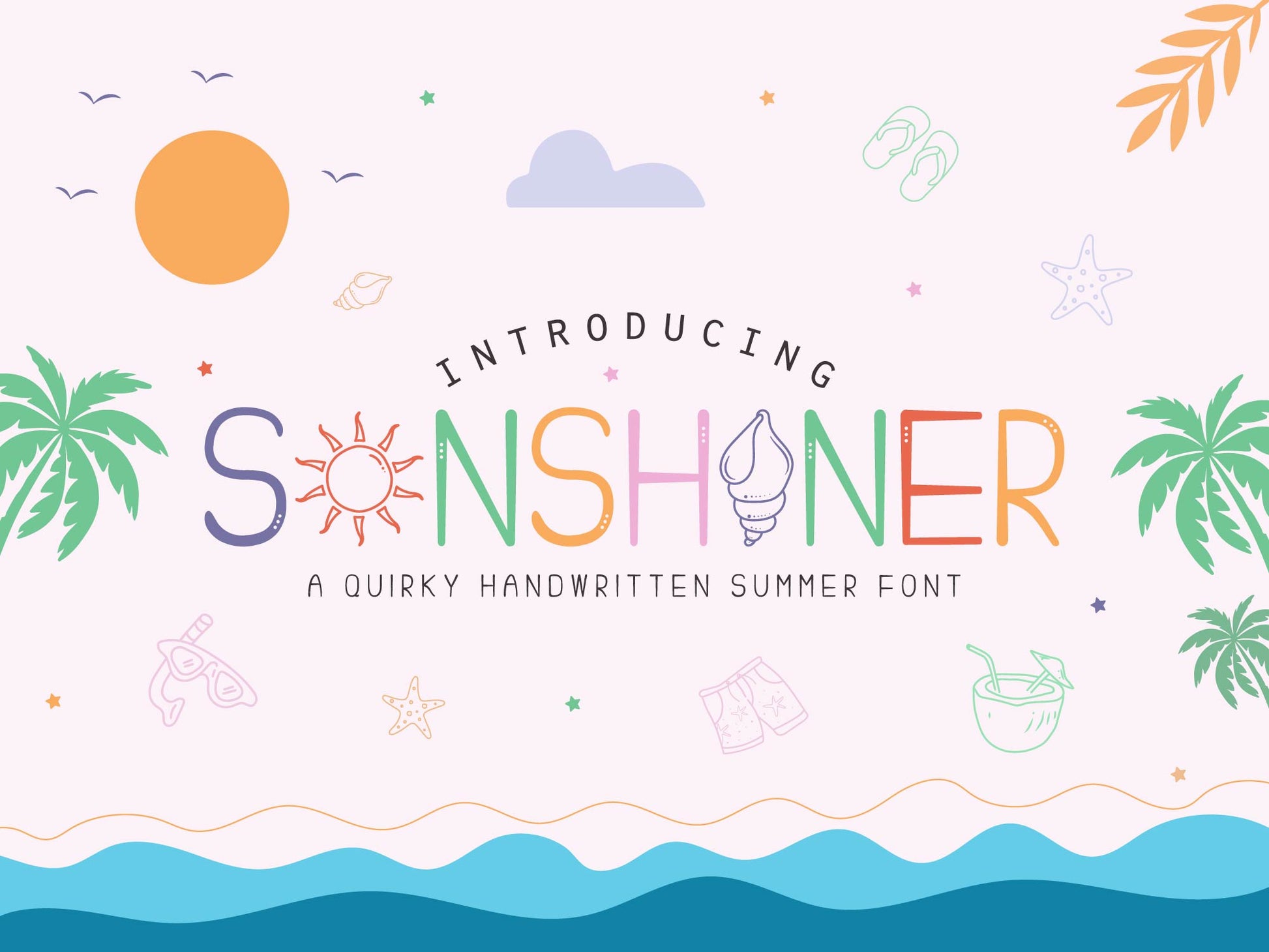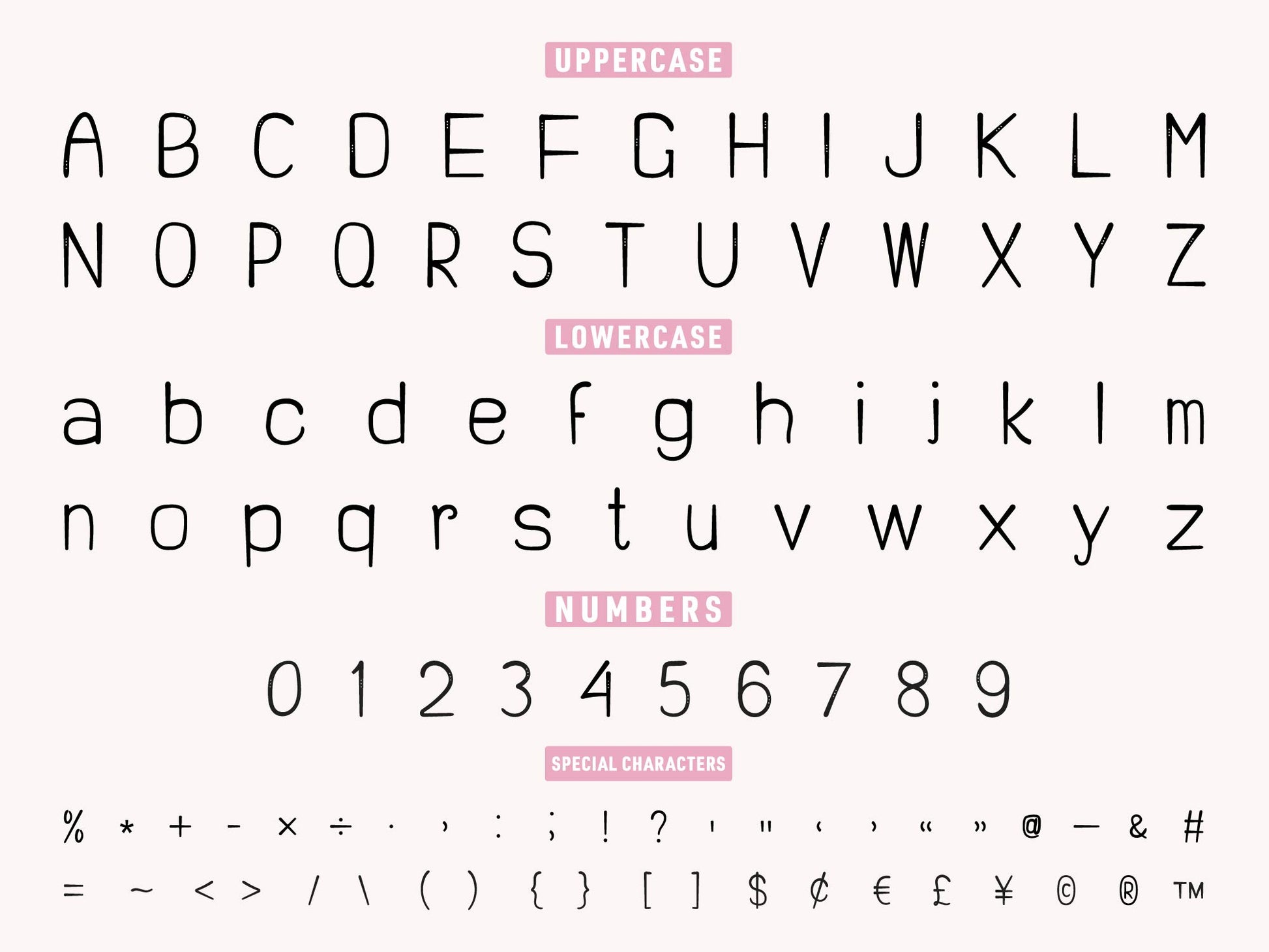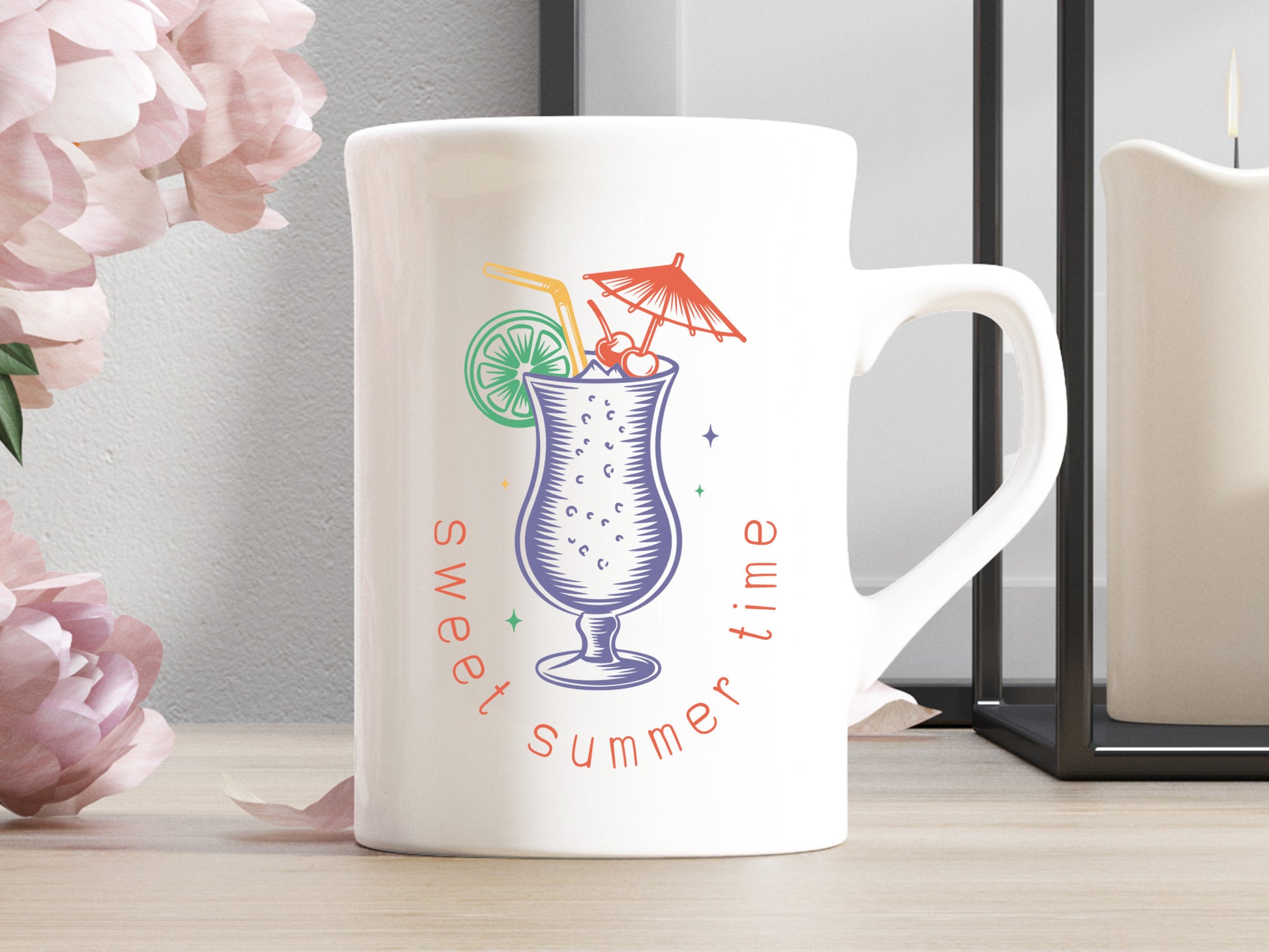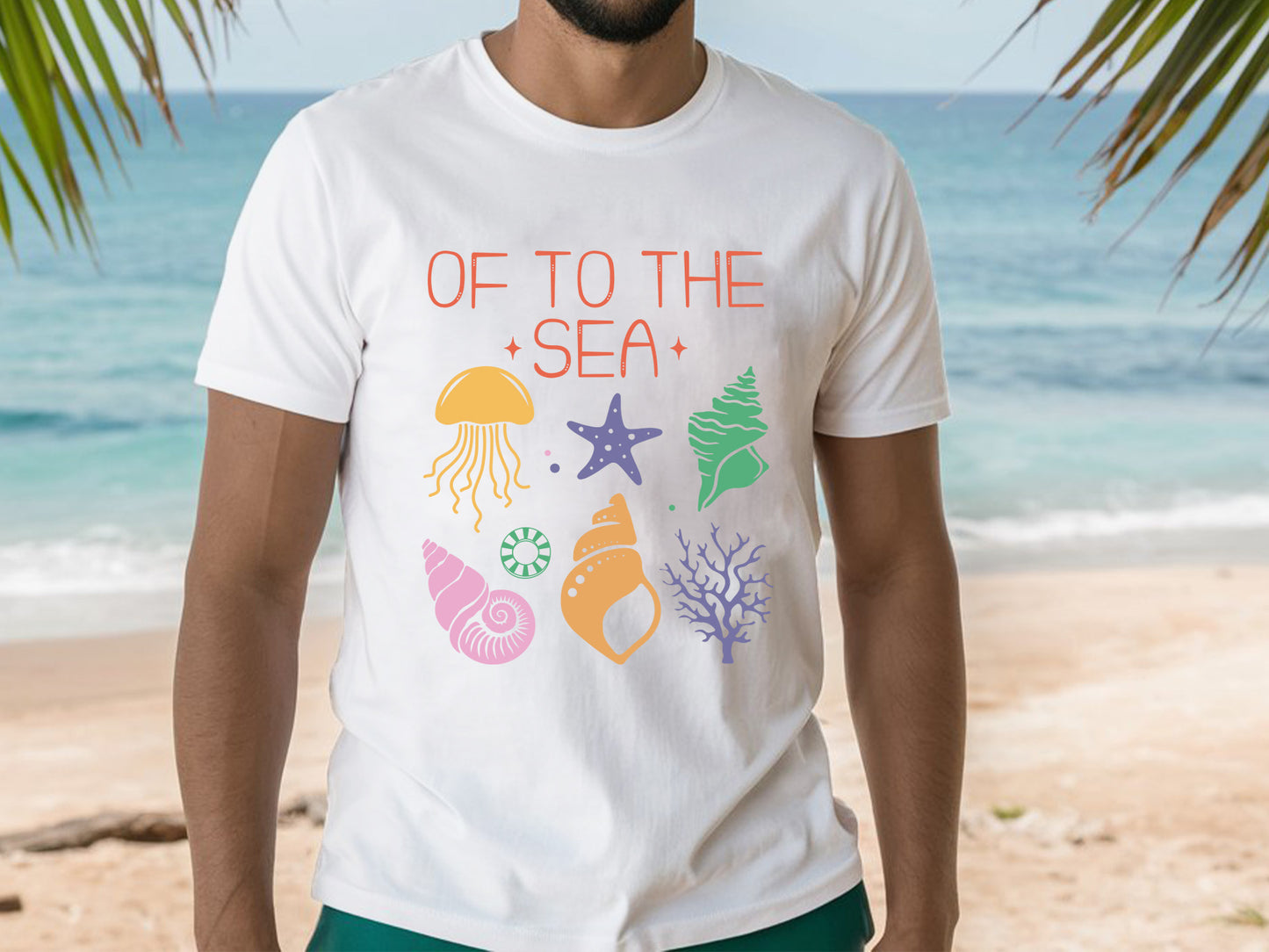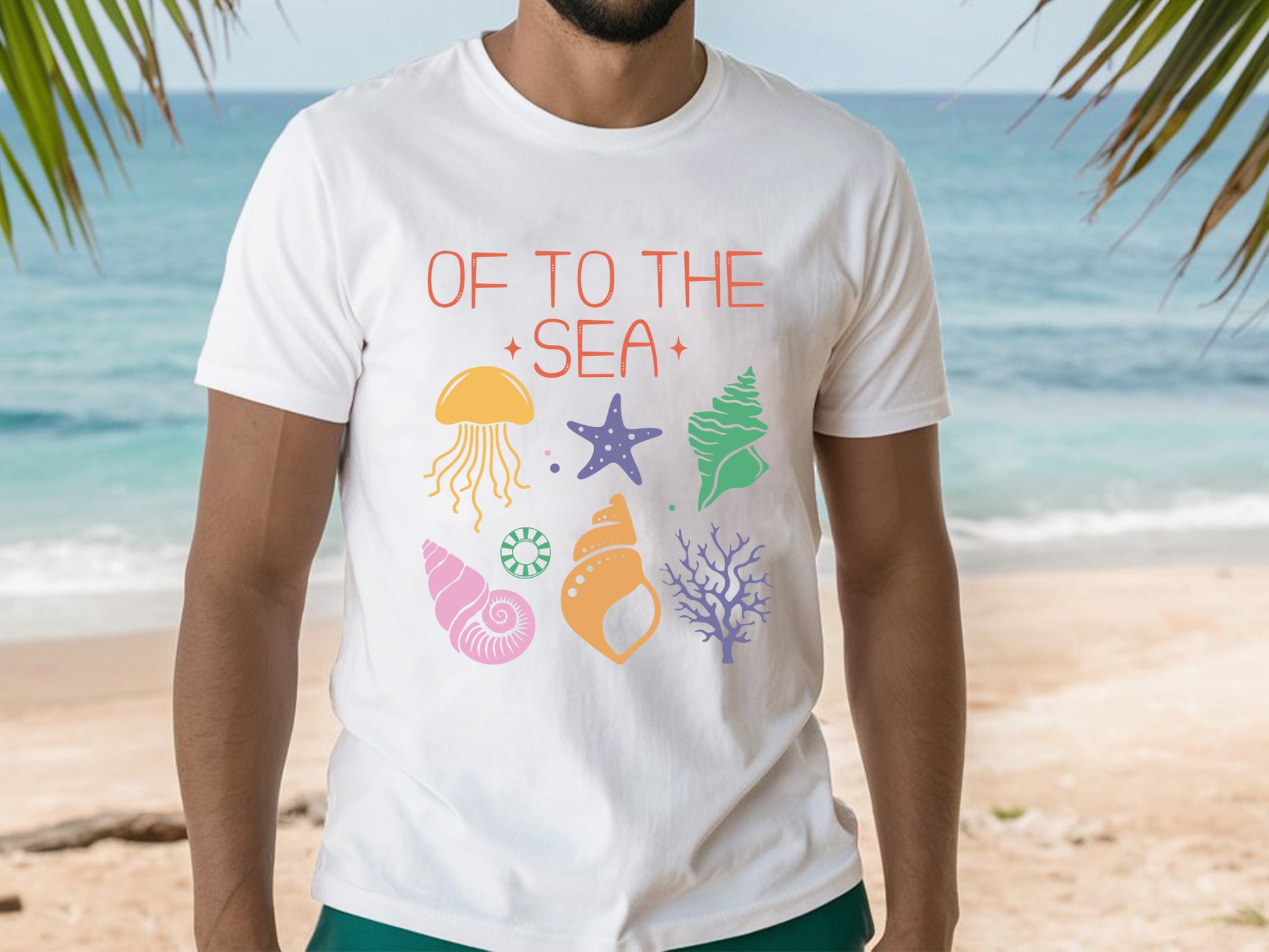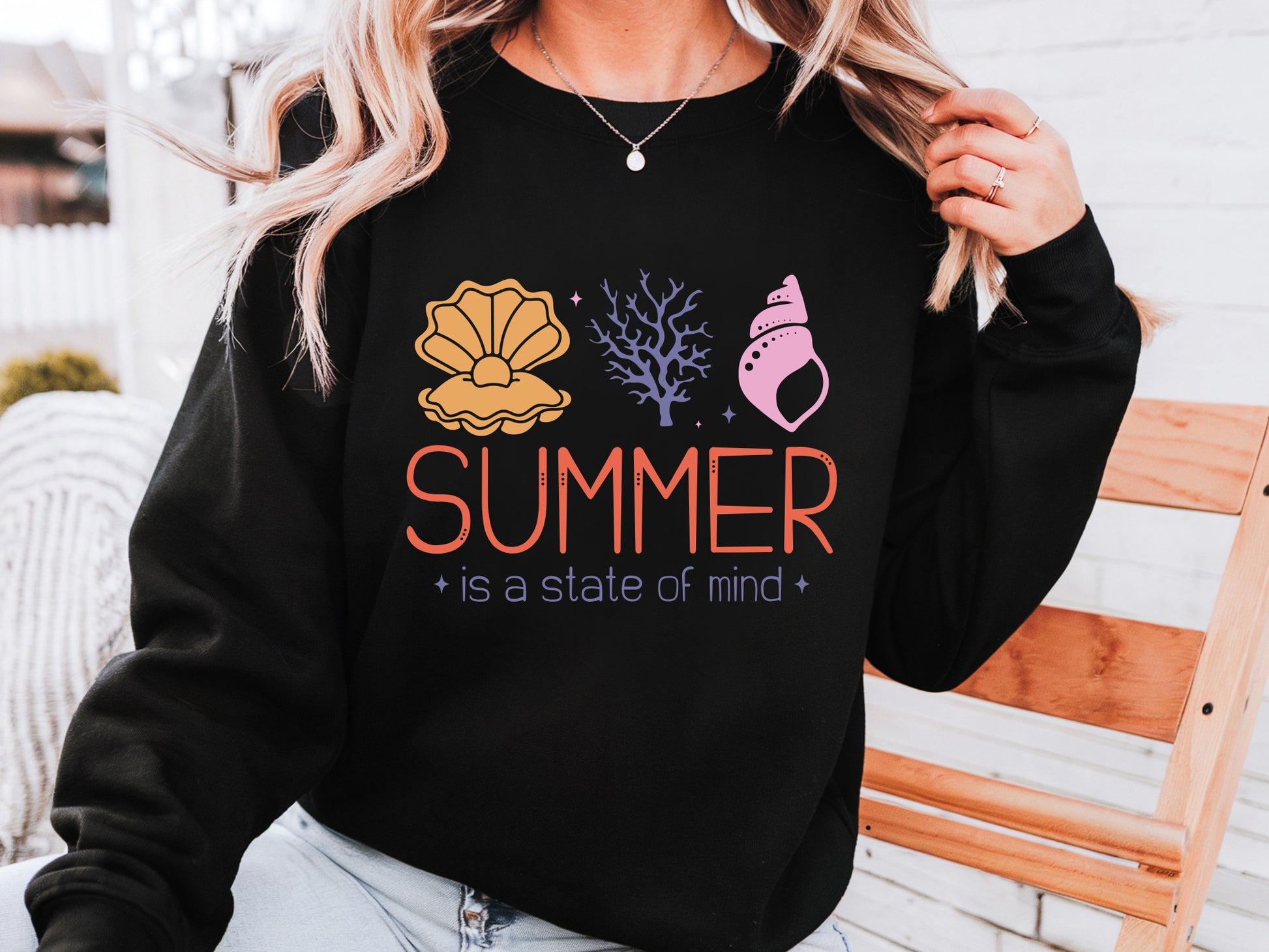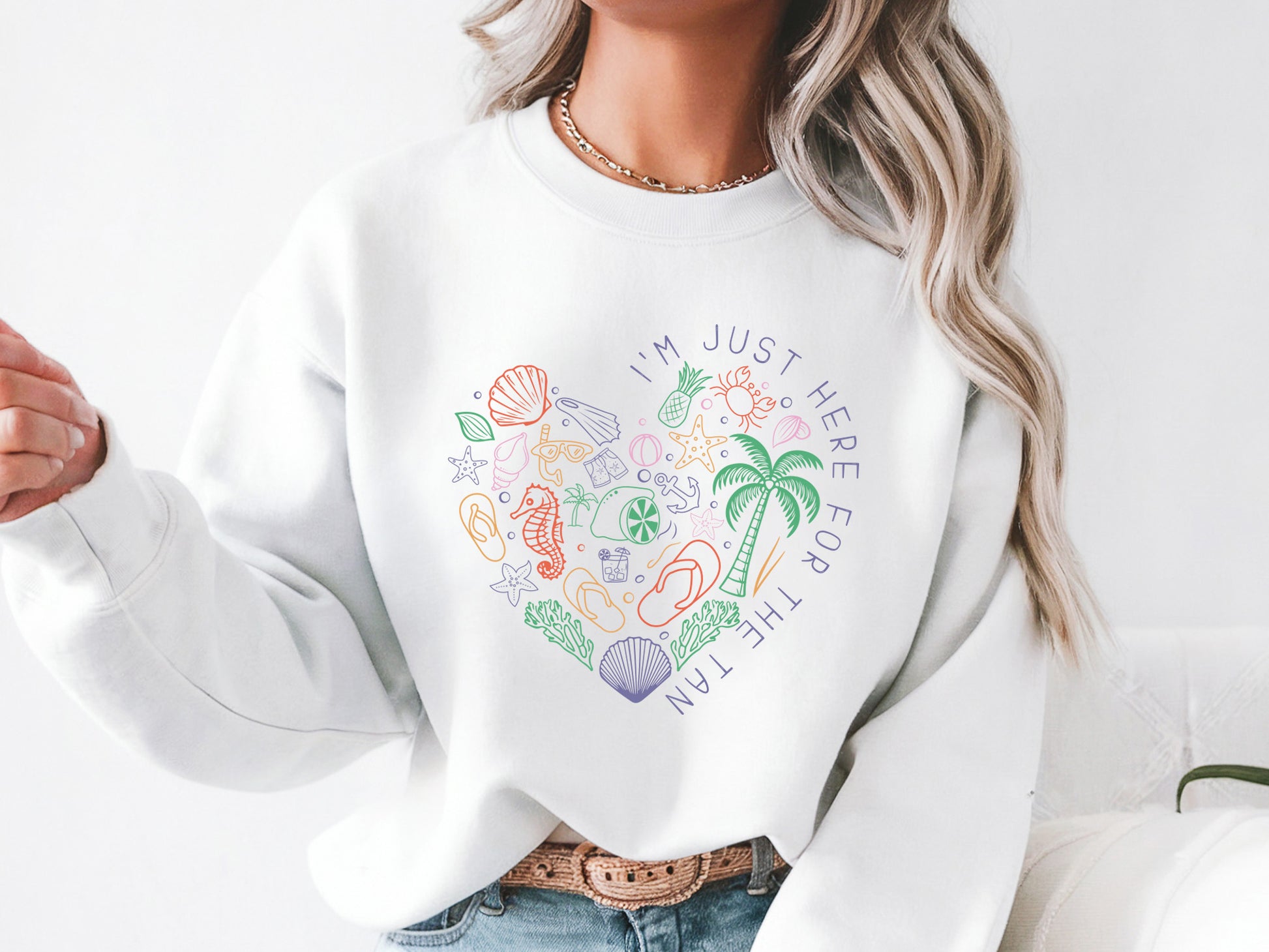
Sunshiner | A Handwritten Summer Font
Sunshiner is a quirky handwritten summer font that includes both TTF and OTF formats. This playful typeface is perfect for bringing a fun, relaxed vibe to all your summer-themed designs. Whether you're crafting beach party invitations, cheerful social media posts, t-shirt quotes, or bright seasonal decor, Sunshiner delivers a charming handwritten touch that feels both fresh and friendly. With its smooth curves and quirky personality, this summer font is ideal for designers who want to capture that carefree, sun-soaked feeling in their work. The quirky font is perfectly suited for Cricut and Silhouette projects, logos, stickers, greeting cards, and much more.